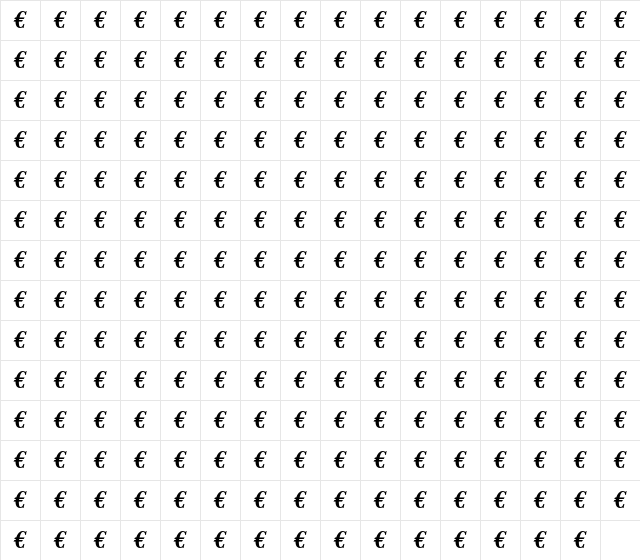
Euro Serif Bold Italic Font Preview
Euro Serif Bold Italic
Design Context for Euro Serif Typeface
Euro Serif brings classic typographic sensibility to the table — its serifs and measured letterforms reflect centuries of print heritage. Its italic angle brings a sense of urgency and motion to the letterforms. Its bold stroke weight gives it real presence on the page.
Pro Tip: Use Euro Serif for editorial body copy and considered headline work. Pair with a neutral sans for UI elements or captions to create a classic hierarchy.